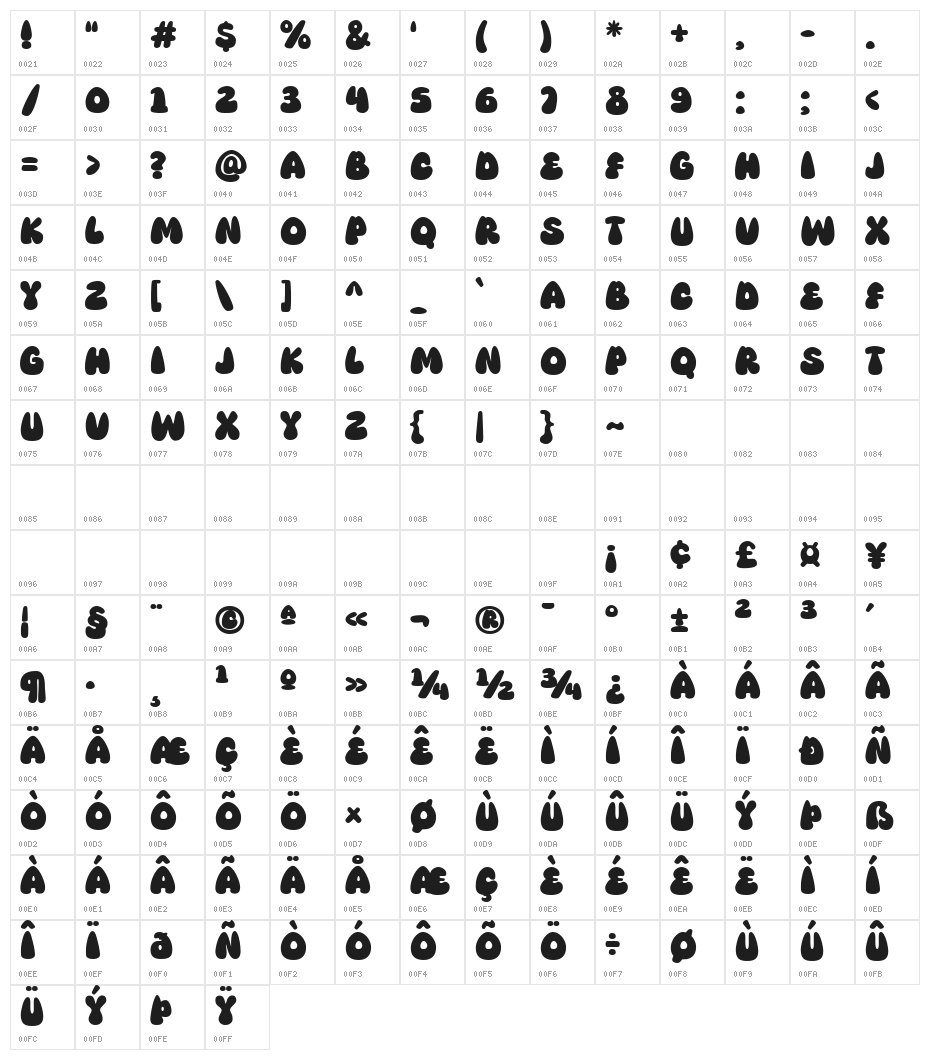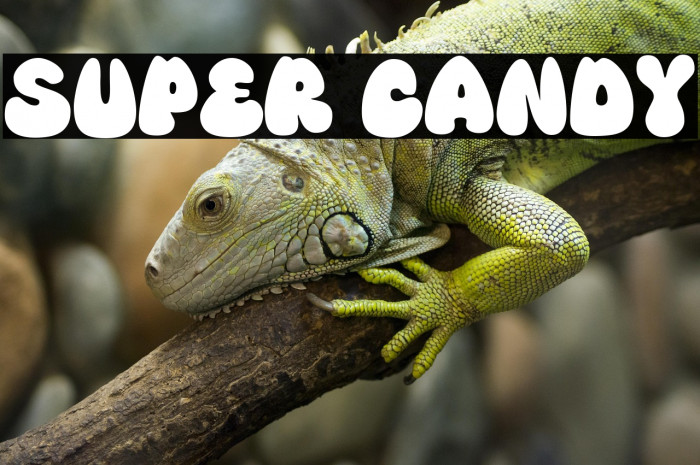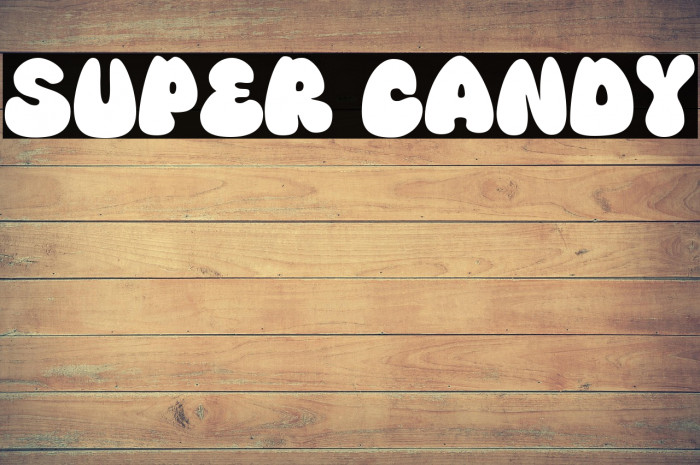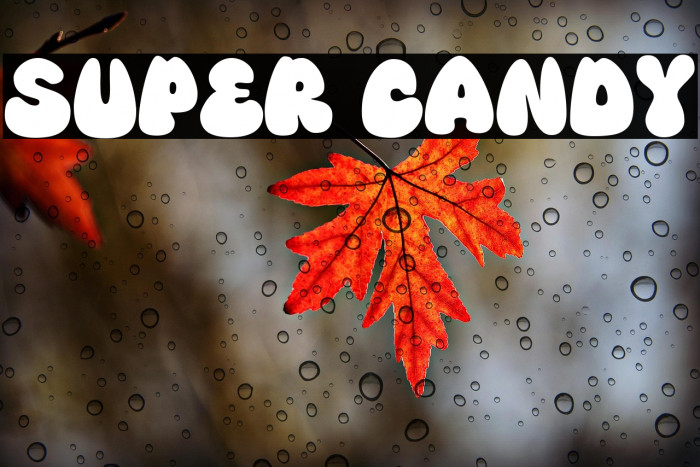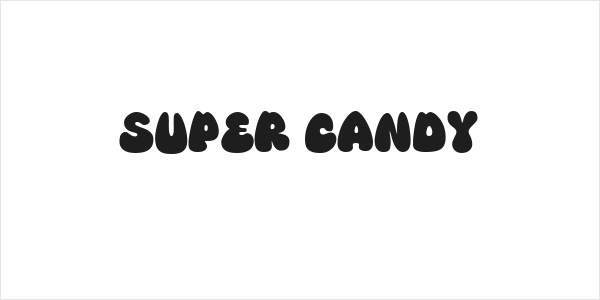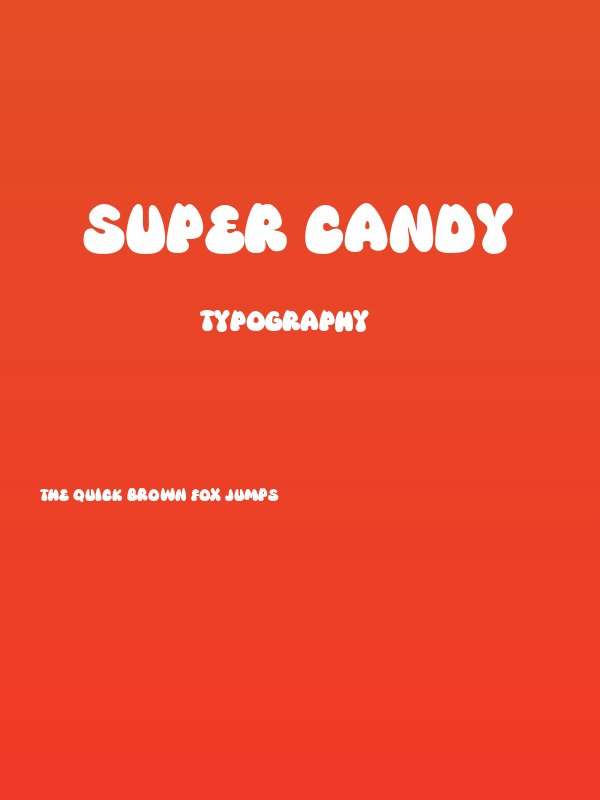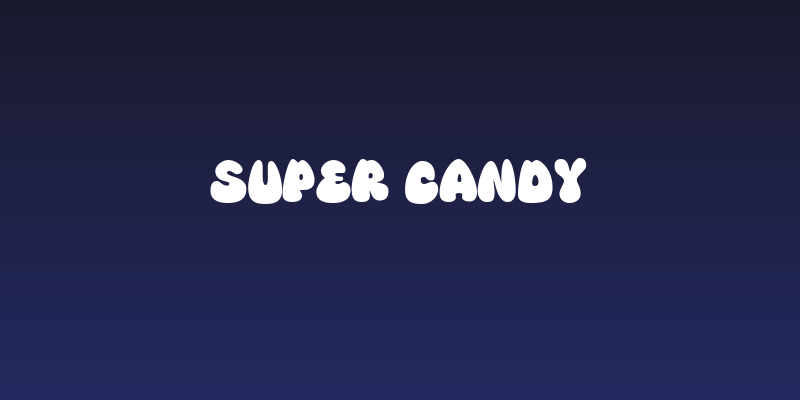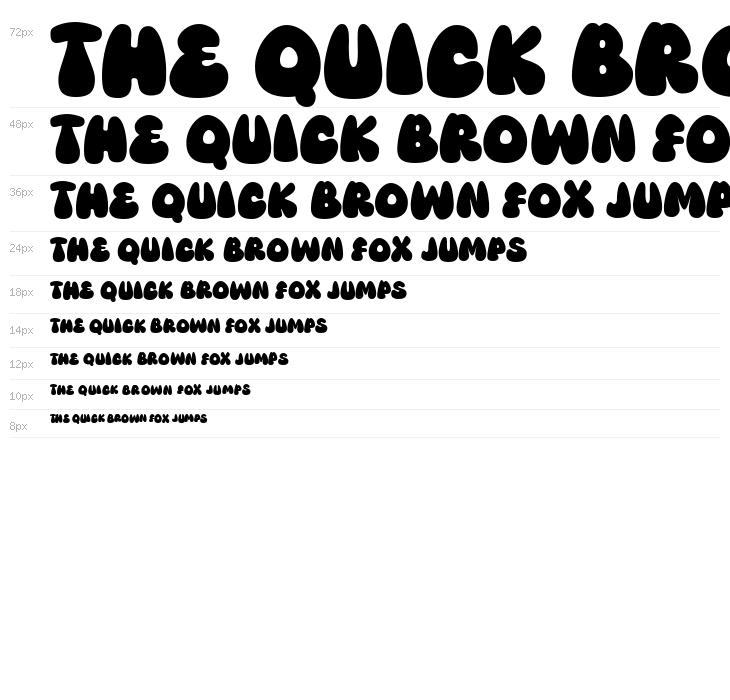
Super Candy Font
Super Candy Description
This playful and bold font features a bubbly, rounded style that exudes a sense of fun and whimsy. Each character is designed with a thick, uniform stroke that gives it a substantial presence on the page. The letters are slightly condensed, enhancing their compact and cohesive appearance. The font's unique style is characterized by its soft, pillowy forms, which create a friendly and approachable aesthetic. The consistent weight across all characters ensures readability while maintaining its distinctive look. This font is perfect for projects that require a touch of humor and lightheartedness, making it ideal for children's materials, playful branding, and eye-catching headlines.
| Width | Condensed |
| Overall Style | Playful, Whimsical |
| Use Case | Headlines, Logos, Children's materials |
| Proposed Projects | Ideal for children's books, playful branding, party invitations, and eye-catching headlines. |